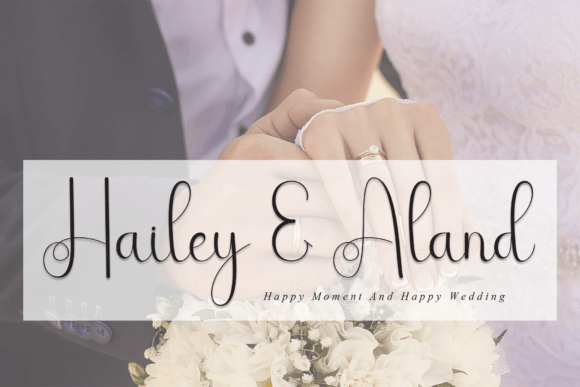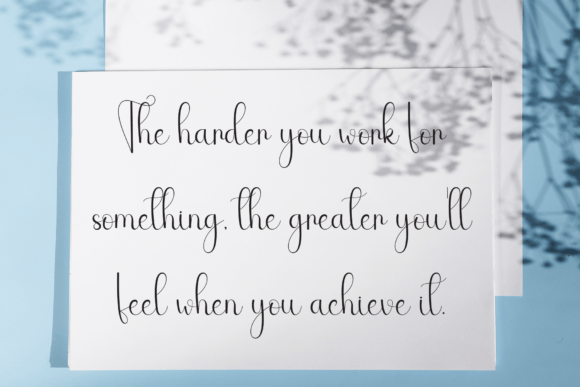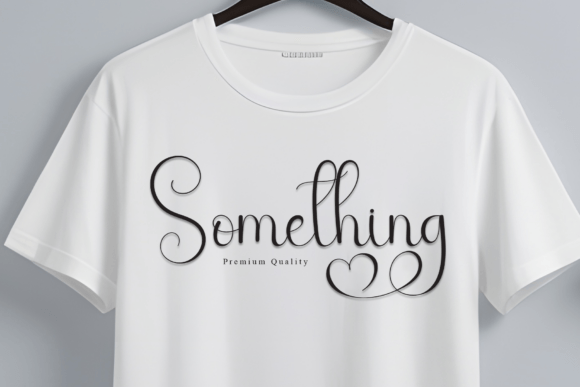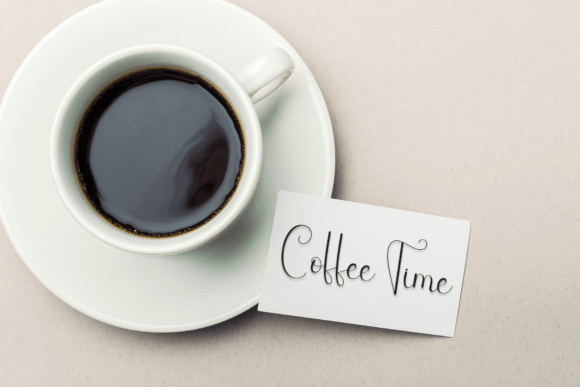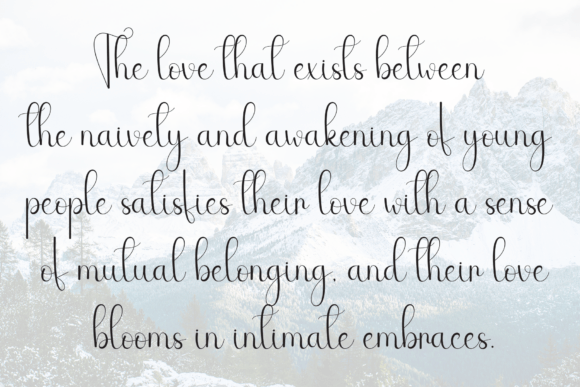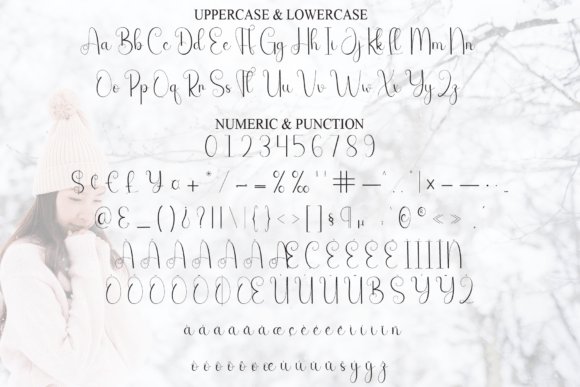
The Perfect Touch of Elegance: Unveiling the Beauty Snowy Font
As designers, we’ve all been there – staring at a blank page, trying to bring a vision to life. The cursor blinks, and our minds start racing with ideas, but the perfect font seems elusive. That’s where the Beauty Snowy Font comes in, a stylish handwritten script font that adds a touch of sophistication to any design.
Whether you’re creating an invitation, logo, or branding material, Beauty Snowy Font is the perfect choice. Its flowing, graceful curves exude elegance and charm, bringing warmth and creativity to your projects. For designers, this font is a valuable asset, offering a unique and personal touch that sets their work apart from the rest.
Beauty Snowy Font Key Features
- Font Family: Beauty Snowy Font is a unique, handwritten font with a touch of elegance and sophistication.
- Unique Characteristics: Beauty Snowy Font features a mix of cursive and script styles, with intricate details and flourishes that add a touch of personality to any design.
Beauty Snowy Font Review
I’ve had the chance to work with the Beauty Snowy Font, and I must say it’s a unique and interesting typeface. Here’s my honest review.
- The font’s intricate details and flourishes give it a charming, hand-drawn feel that’s perfect for creative projects.
- The Beauty Snowy Font is highly legible, even at smaller font sizes, making it suitable for body text as well as headings.
- The font’s high contrast between thick and thin strokes adds visual interest and helps it stand out on the page.
- The font’s complexity and ornate details can make it difficult to read at a glance, especially for those with vision impairments.
- The font may not be suitable for use in situations where a more straightforward, sans-serif font is required.
Overall, the Beauty Snowy Font is a beautiful and unique typeface that’s perfect for creative projects where you want to add a touch of elegance and whimsy. However, it may not be the best choice for more straightforward or formal projects.
The Beauty Snowy Font is ideal for creating elegant and sophisticated designs, such as:
- Business cards and branding materials
- Photography and art projects
For optimal results, use the Beauty Snowy Font in conjunction with high-quality images and carefully chosen color schemes.